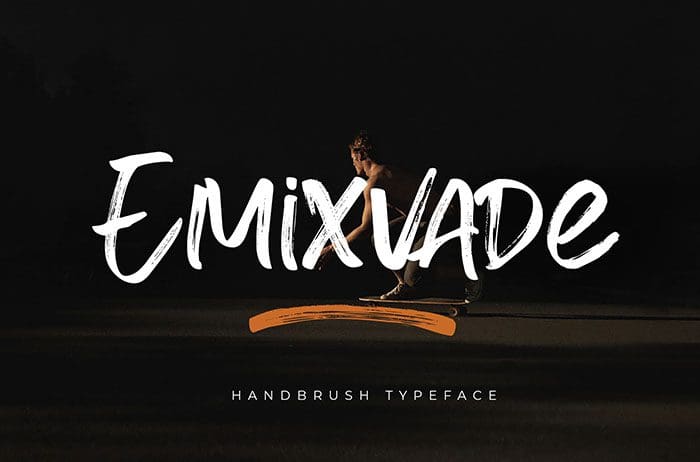
Emixvade Handbrush Font
Emixvade handbrush font. It’s a Handbrush Script Font with authentic style. This font is made with a brush pen with very careful techniques, so the results are charismatic and have enchanting characteristics. This font is available only for personal use. Created this font by StringLabs. You can also search more free Fonts. Thanks.